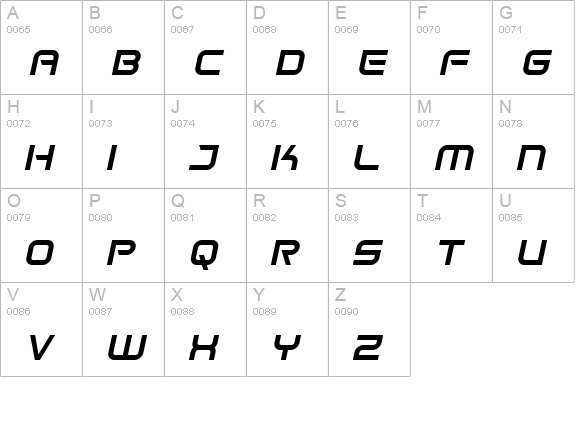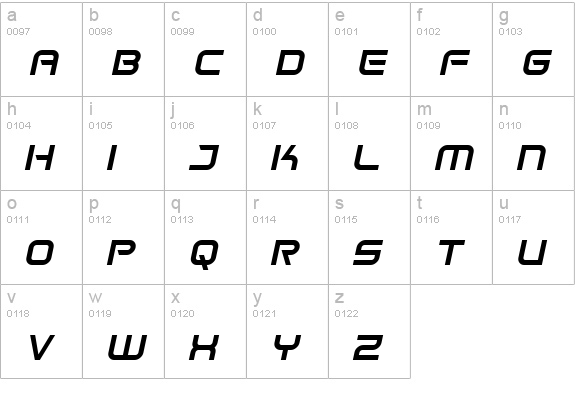
Space Frigate Italic Font Details
Space Frigate Italic is a distinctive, italic variant in the Space typeface family \xE2\x80\x94 well suited to design and typography projects.
Space Frigate Italic is a captivating and futuristic font that transports you to the outer reaches of the galaxy. With its sleek and dynamic design, this font embodies the essence of interstellar exploration. Every letter is meticulously crafted, forming a harmonious blend of sharp angles and smooth curves, reminiscent of the sleek hull of a space frigate. The Italic variant of Space Frigate adds an extra touch of elegance and motion to your designs, making it perfect for conveying a sense of adventure and discovery. Whether you're designing a sci-fi movie poster, a futuristic video game interface, or a captivating book cover, this font will undoubtedly grab the attention of your audience and leave a lasting impression. What's even better is that Space Frigate Italic is freely available to download at FontsMarket.com. You can easily incorporate this font into your projects without any cost, allowing you to unleash your creativity without limitations. Its availability for free makes it an excellent choice for designers, hobbyists, and professionals alike who are looking for a high-quality font that doesn't break the bank. So, whether you're embarking on a cosmic journey through graphic design or simply want to add a touch of futuristic flair to your creative endeavors, Space Frigate Italic is the perfect companion. Download it for free at FontsMarket.com and let your imagination soar to new celestial heights.